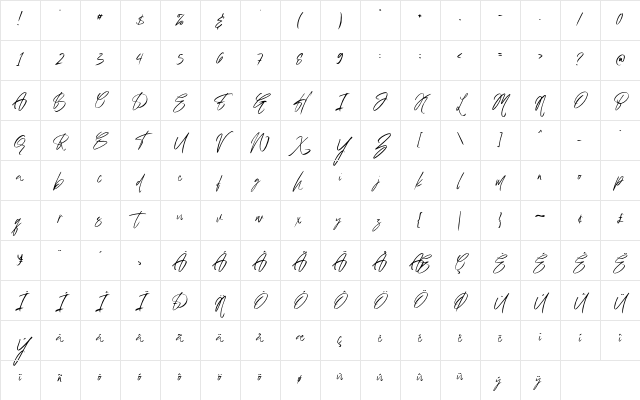
Complete Austand Signature Regular glyph index. Displaying only characters natively supported by Austand Signature Regular font.
Austand Signature is a composed and adaptable typeface that performs quietly and consistently across a wide range of design contexts.